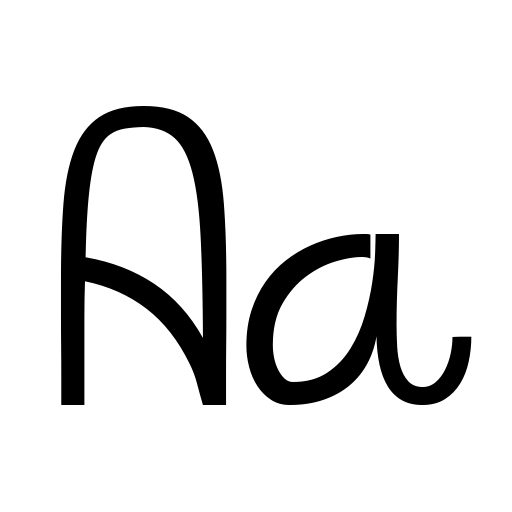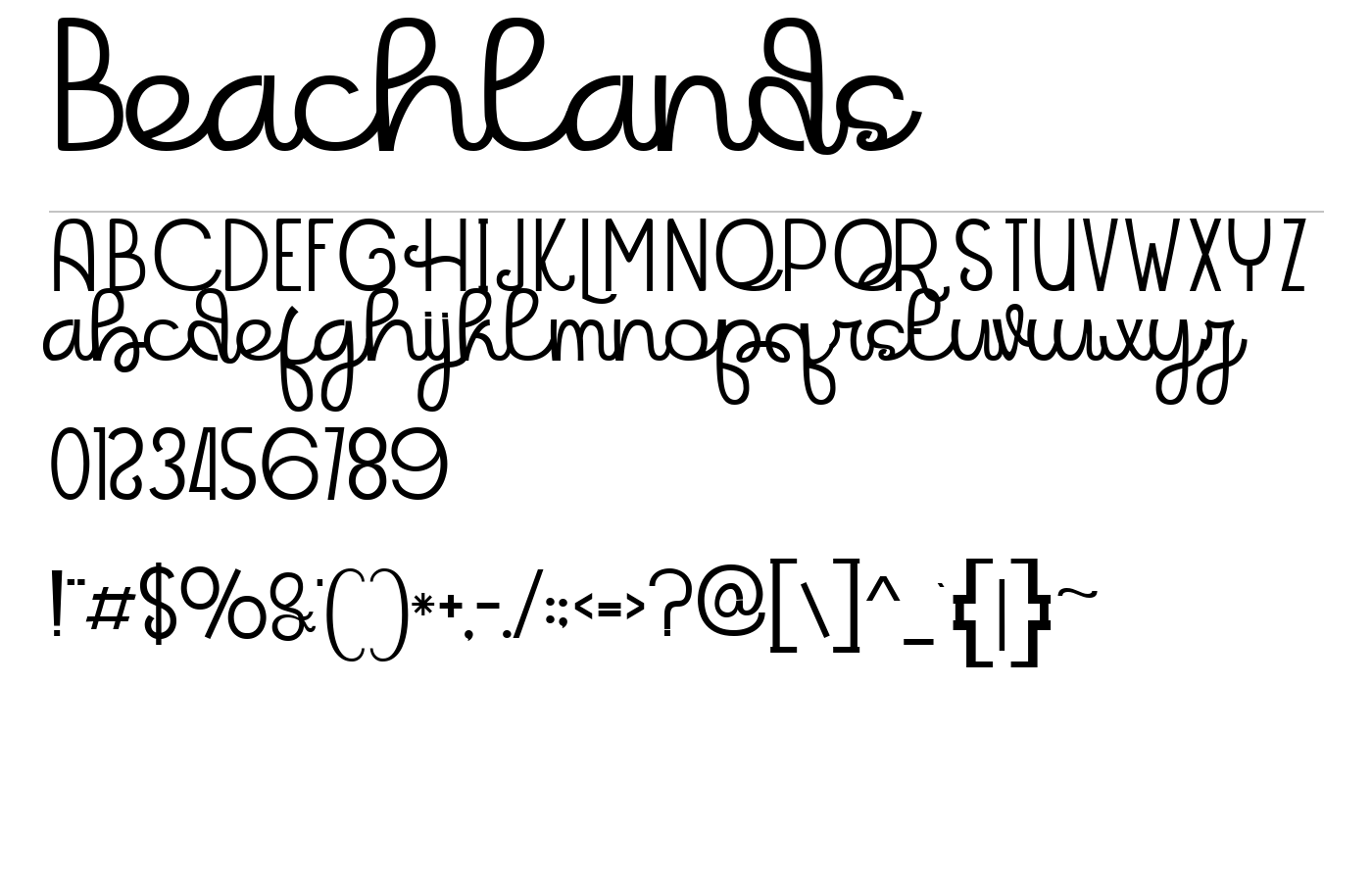
Beachlands is a playful, handwritten sans serif font with a casual, flowing style that combines tall, narrow letterforms and smooth, rounded strokes. Its light weight and whimsical letter connections give it an approachable, friendly personality, making it ideal for creative branding, informal invitations, and lighthearted editorial projects. This font works best where a personal, charming touch is needed to evoke warmth and creativity.
Beachlands Font
About Beachlands Font
| Font family | Beachlands Font |
| Designer | jehan |